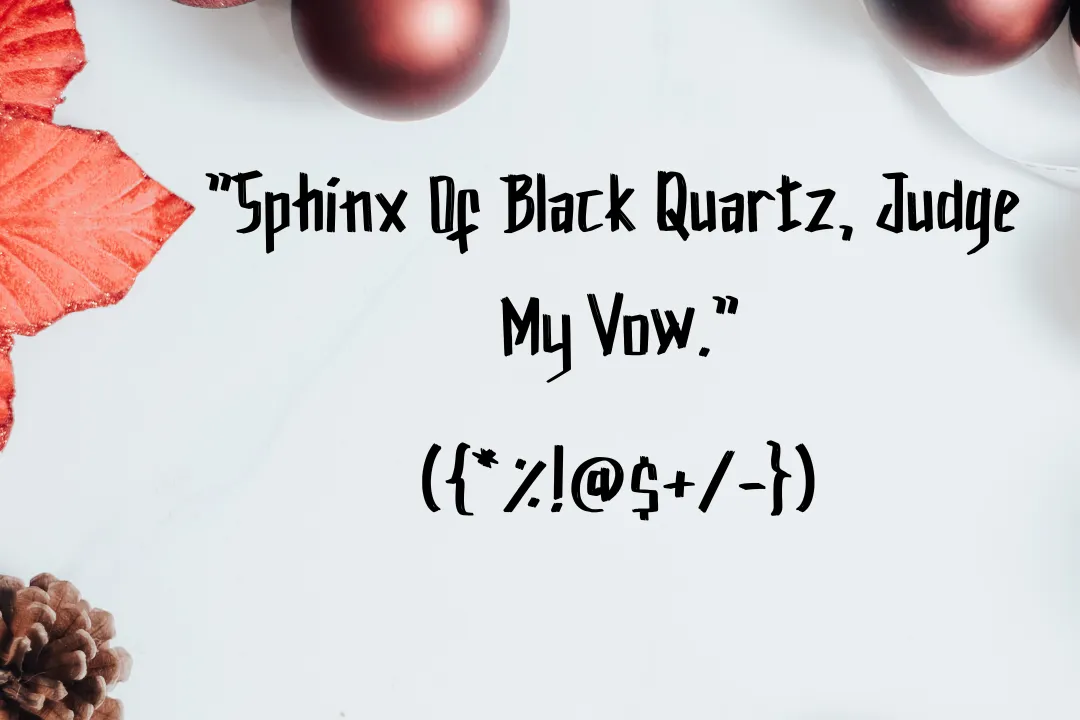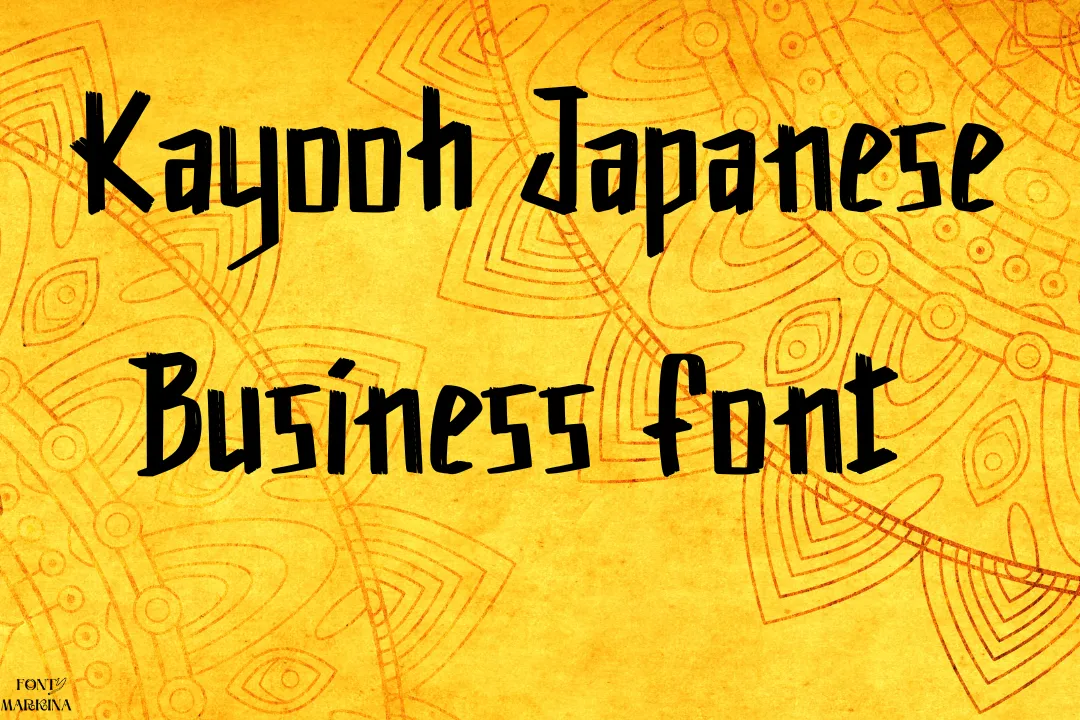
Today, a Japanese and world typeface is here known under the name Kayooh Japanese Business Font. This texture is classified as the display family of textures. And this typography is popular as solid and Bold display look and also with all Japanese characters and styles.
Creative type Studio is the main developer of this typography. Especially this family is well appropriate for Logos design projects and themes. This family has a mixture of display and handwritten tastes that can combine together and look more attractive. This typography is attainable in OTF and also in TTF file structures.
Uses of Kayooh Japanese Business Font
Many web developers remain in search of this family for their business tasks like social media posts, presentations, and other different higher projects. Because of its Japanese characters, it is commonly used for watermarks, photography, editing, and Logos designs for different brands.
In wedding designs, stationery, invitation, and covers, the use of this family are familiar. One more classic use of this typography is for product packaging. You can also make the proper and strong pairing of this family with Nise Sega Sonic font and enjoy its more classic uses.
What is the main category of Kayooh Japanese Business Font?
This typography lies in the classification of the Display family and has Handwritten taste.